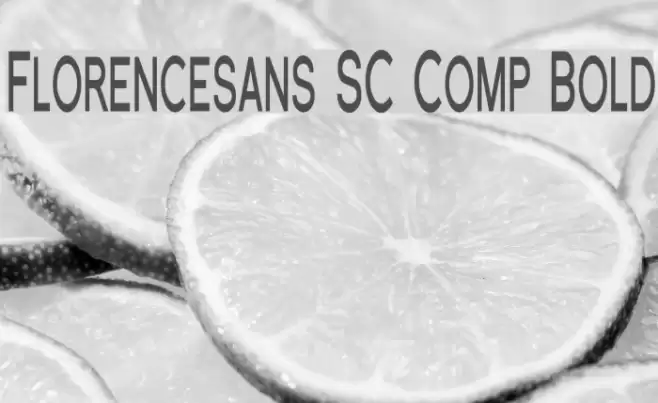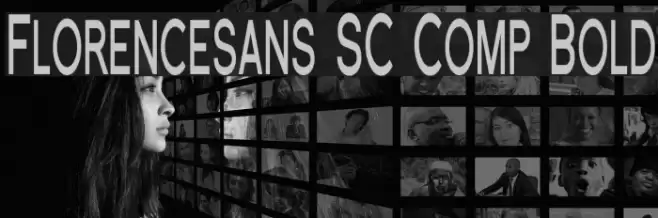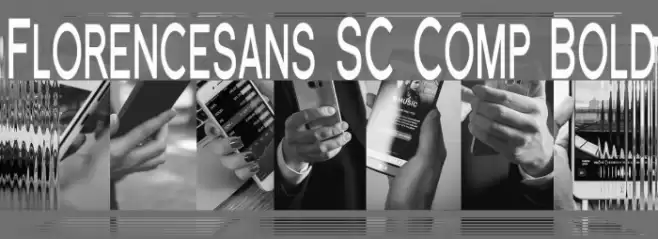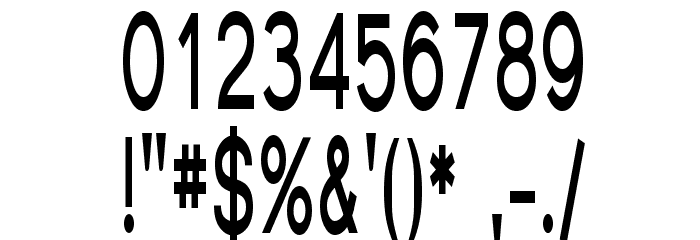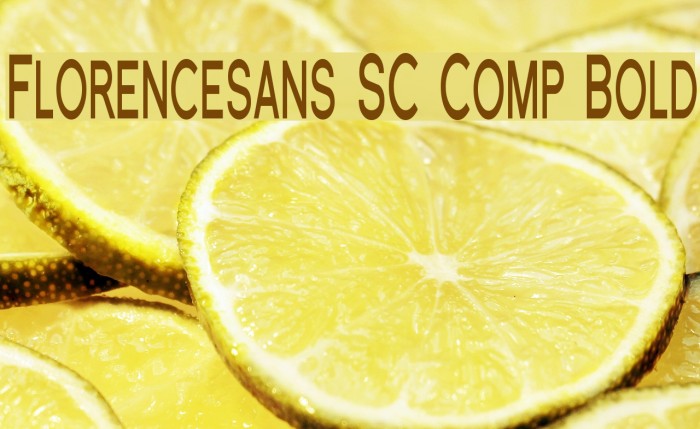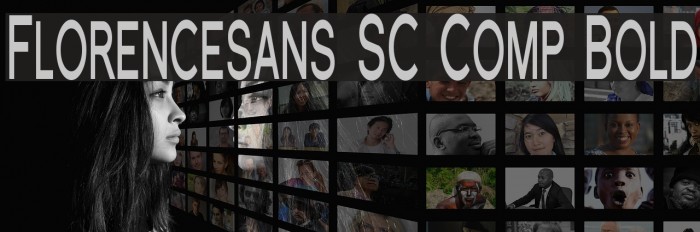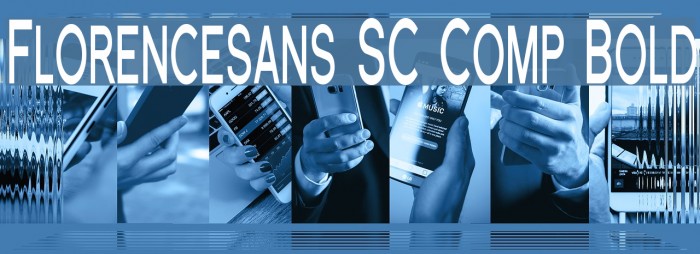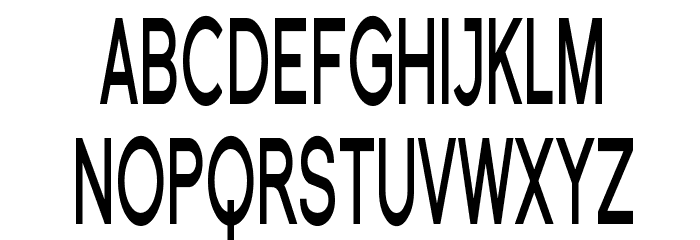
Florencesans SC Comp Bold Font
Florencesans SC Comp Bold Description
This font features a bold and compact design with clean, straight lines and a modern aesthetic. The characters are uniformly thick, providing a strong and impactful appearance. The uppercase letters are prominent and assertive, while the numerals are clear and easily readable. Special characters are well-defined, maintaining the font's cohesive style. The overall look is sleek and professional, making it suitable for a variety of design applications where clarity and emphasis are required.
A bold, compact sans-serif font with a modern and impactful style from Sans Serif fonts.
- Proposed Projects: Ideal for branding, advertising, headlines, and signage where a strong visual impact is needed.
- Use Case: Headlines, Logos, Signage